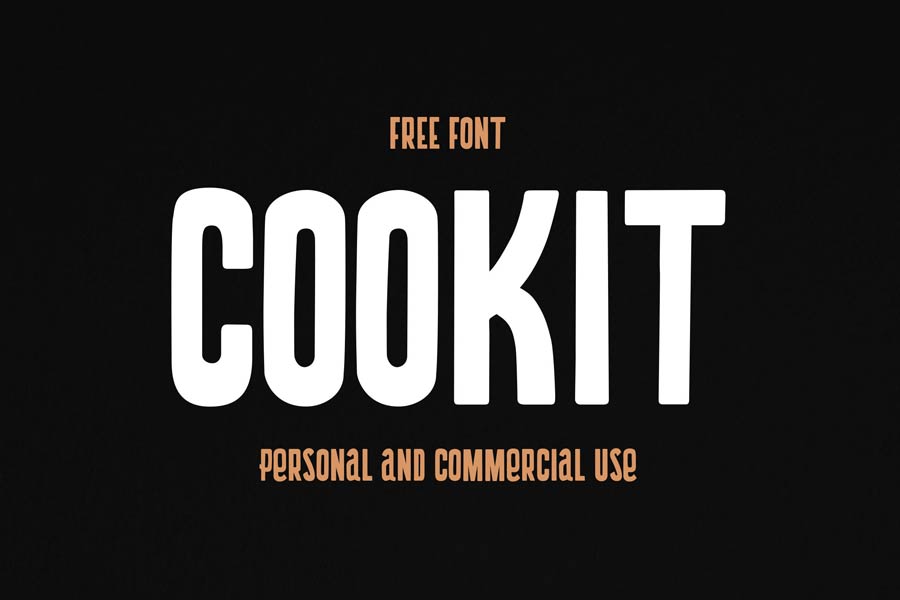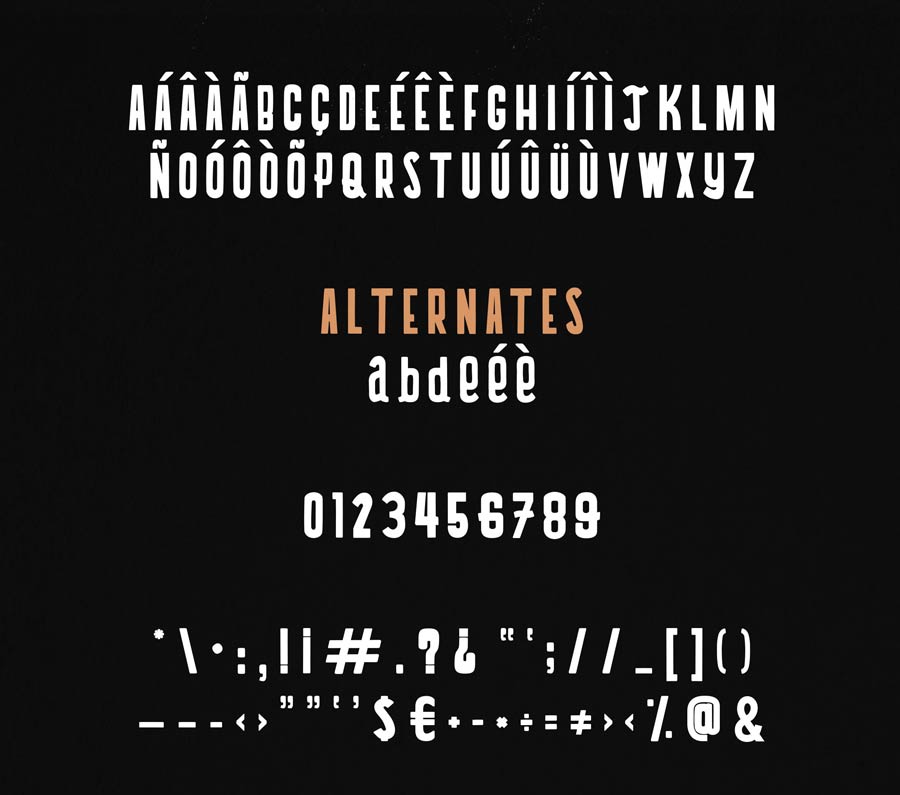
Cookit is a display style uppercase-only free font that has personal touch to it. It’s a tall and bold font and I like the way that some of the letters are depicted in lowercase version. You can use it for logos, labels and anything that requires attention!